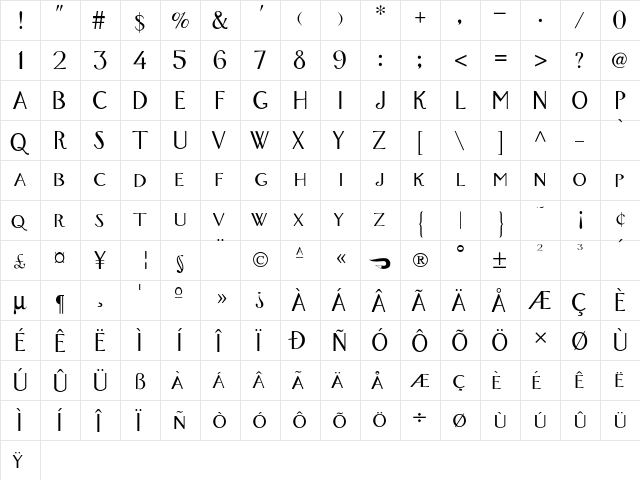
FoxTrotMedium Regular
Design Context for FoxTrotMedium Typeface
FoxTrotMedium is a composed and adaptable typeface that performs quietly and consistently across a wide range of design contexts.
Pro Tip: Use FoxTrotMedium in both headline and body roles to test its range before committing to a single application.